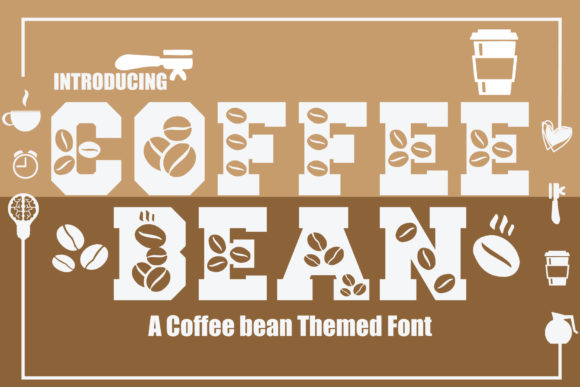
Unleash the magic of Christmas with "Coffee Bean Font," a whimsical and charming decorative font that adds a touch of festive cheer to your holiday creations. This unique font, masterfully crafted by the talented KtwoP, captivates the essence of the season with its delightful coffee beans design, inviting you on a merry journey of creativity.
As you embrace "Coffee Bean Font," you'll discover a world of possibilities where imagination knows no bounds. Its playful and authentic spirit makes it the ideal companion for any children's activity, transforming ordinary projects into extraordinary adventures. Watch as your little ones' eyes light up with wonder as they witness their words dance across the page, adorned with the magic of coffee beans.
Whether you're creating heartwarming Christmas cards, designing festive posters, or personalizing holiday decorations, "Coffee Bean Font" brings a touch of enchantment to every endeavor. Its versatility knows no limits, allowing you to spread Christmas cheer across a myriad of platforms, from social media greetings to personalized gift tags.
With its spirited and enchanting nature, "Coffee Bean Font" inspires boundless creativity, igniting the imagination of artists, crafters, and design enthusiasts alike. As you delve into the realm of seasonal design, this font becomes your trusted ally, guiding you toward captivating and memorable creations that capture the true essence of Christmas.
Prepare to be captivated by the charm of "Coffee Bean Font," a decorative masterpiece that transforms your holiday projects into captivating works of art. Its playful energy and authentic spirit weave a captivating narrative that transports you to a world of festive wonder. Embrace the magic of Christmas with this extraordinary font and let your creativity soar to new heights.